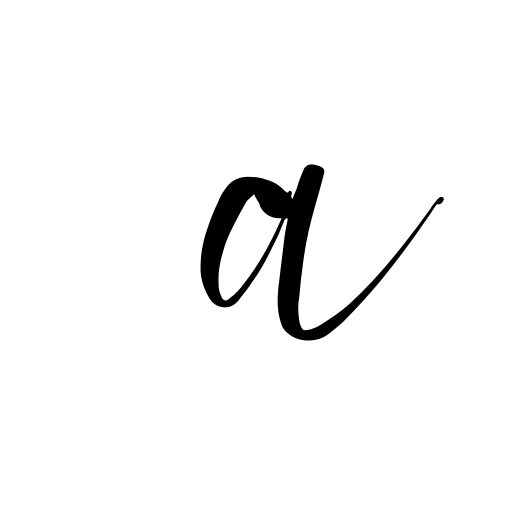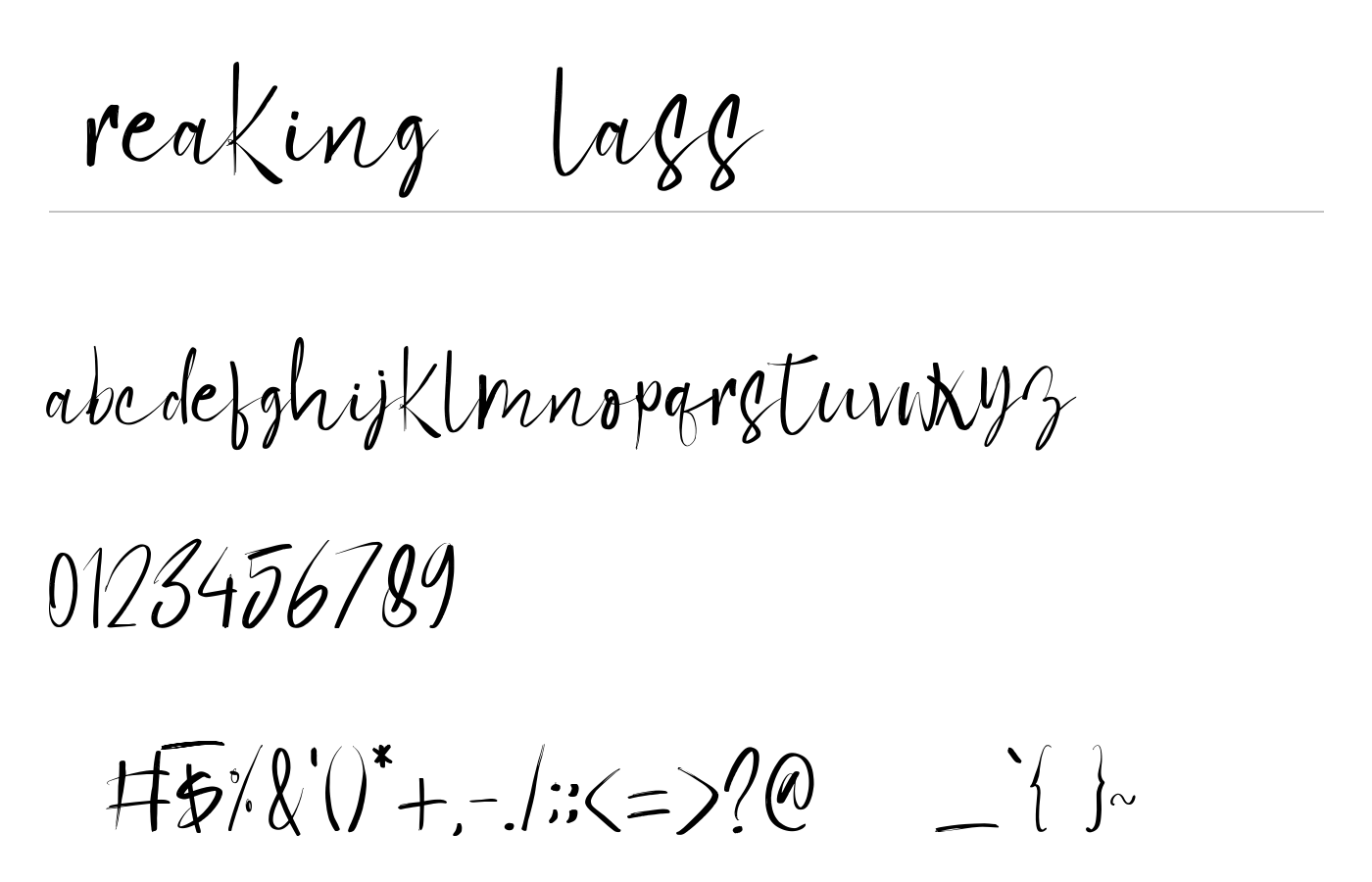
Breaking Glass is a casual, handwritten script font characterized by its light, airy strokes and playful irregularity, mimicking a natural brush or pen style. Its tall, narrow letterforms with expressive, slightly shaky lines give it an informal, artistic vibe, making it ideal for creative projects, personal branding, and invitations where a friendly yet distinctive look is desired. This font works best in headlines and decorative uses, bringing a lively, personal touch without overwhelming the design.
Breaking Glass Font